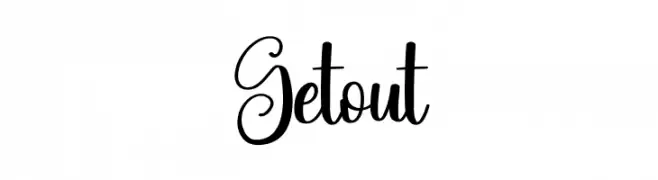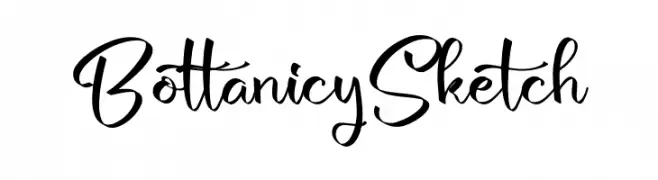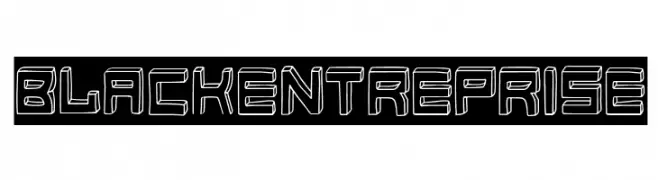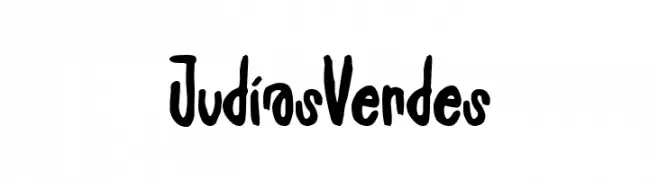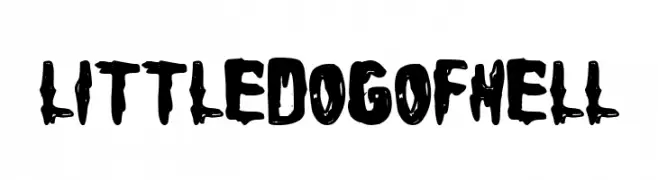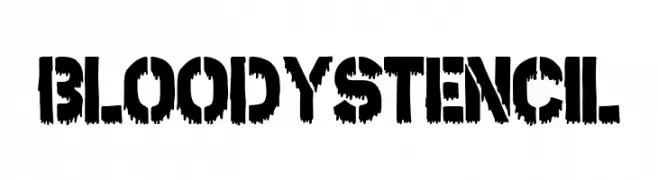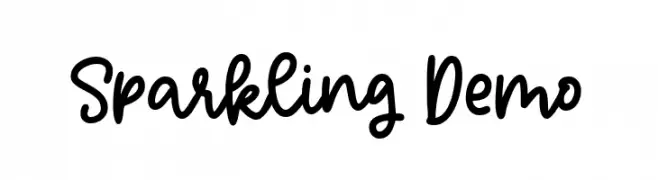
A modern, whimsical handwritten script with tall, narrow forms and playful loops.
Playful handwritten script with tall, narrow letters and decorative swashes.
Handwritten script with playful, sketchy lines and organic flow.
Outlined, geometric display font with a bold, technical look.
Bold, distressed slab serif with a vintage Western feel.
Hand-drawn, playful sans-serif with tall, narrow letters.
Bold, grungy hand-drawn display font with irregular brush strokes.
Distressed, jagged display font with a horror or chaotic theme.
Bold, horror-themed stencil font with dripping, jagged edges.